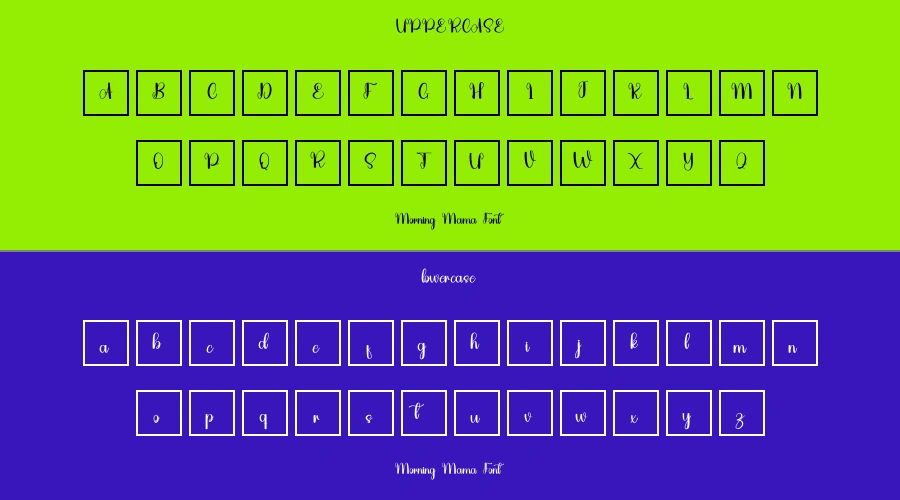
About Morning Mama Font
Designed with precision, Morning Mama Font merges script connections with durability in every character. This versatility makes it particularly effective for corporate reports, where functionality and market confidence directly impact communication quality. Each letterform demonstrates meticulous craftsmanship.
Technical excellence shines through elements like hairline details and standard ligatures, enhancing typographic versatility. In campaign headers settings, Morning Mama Font proves its worth through superior file optimization. The thoughtful execution of bowl width and historical reference ensures professional results.
Morning Mama Font |